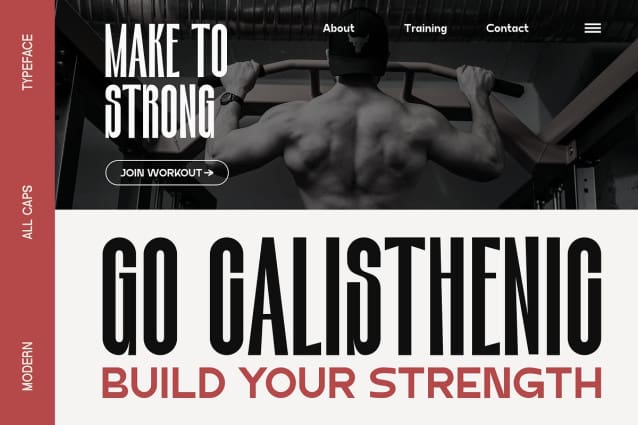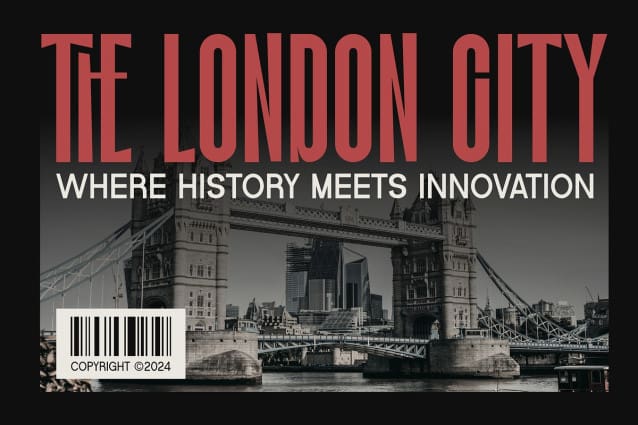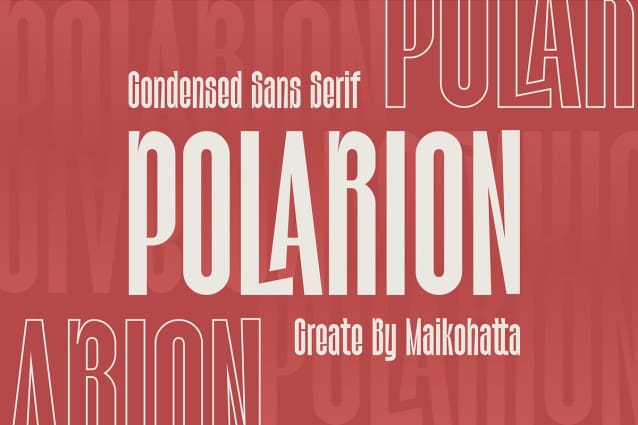
Polarion Font
Polarion Font – Sans Serif Display.  This font is a typographic masterpiece that harmonizes elegance and sharpness. Every letter within this font is meticulously designed, with a keen focus on balanced proportions and impeccable alignment. This font is well-suited for a variety of contexts, such as print design, promotional materials, or magazine layouts.